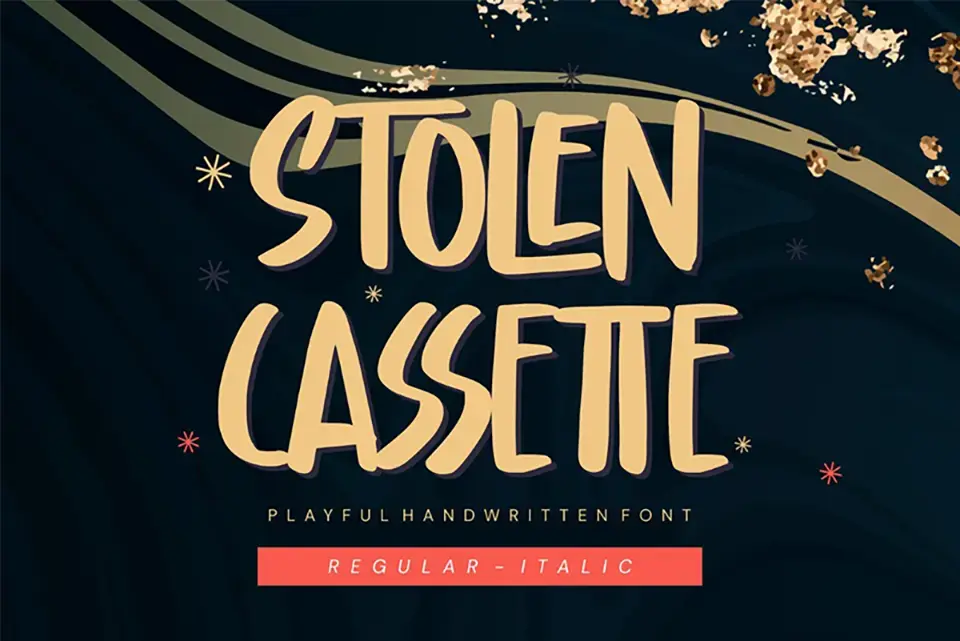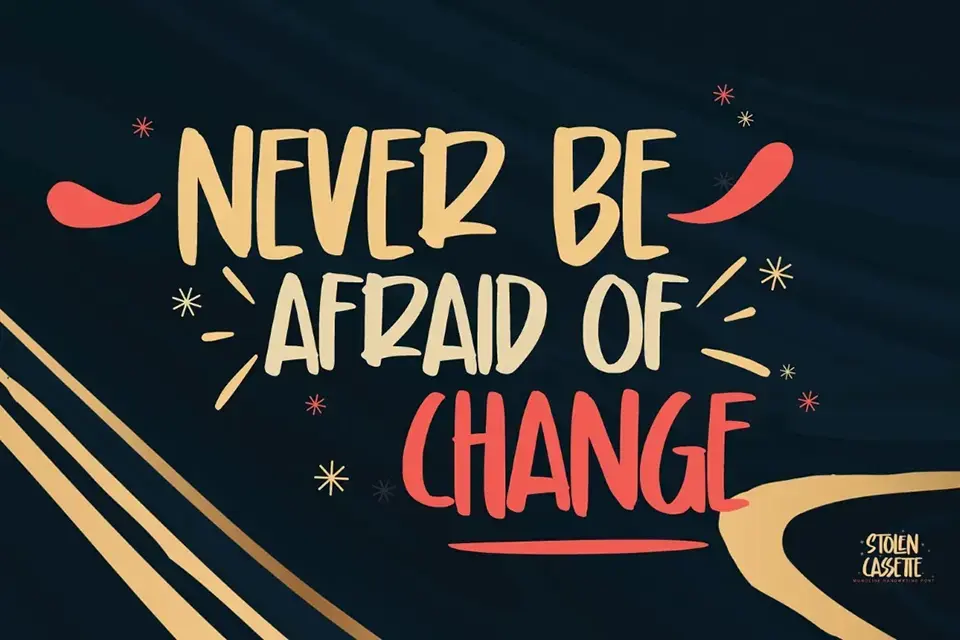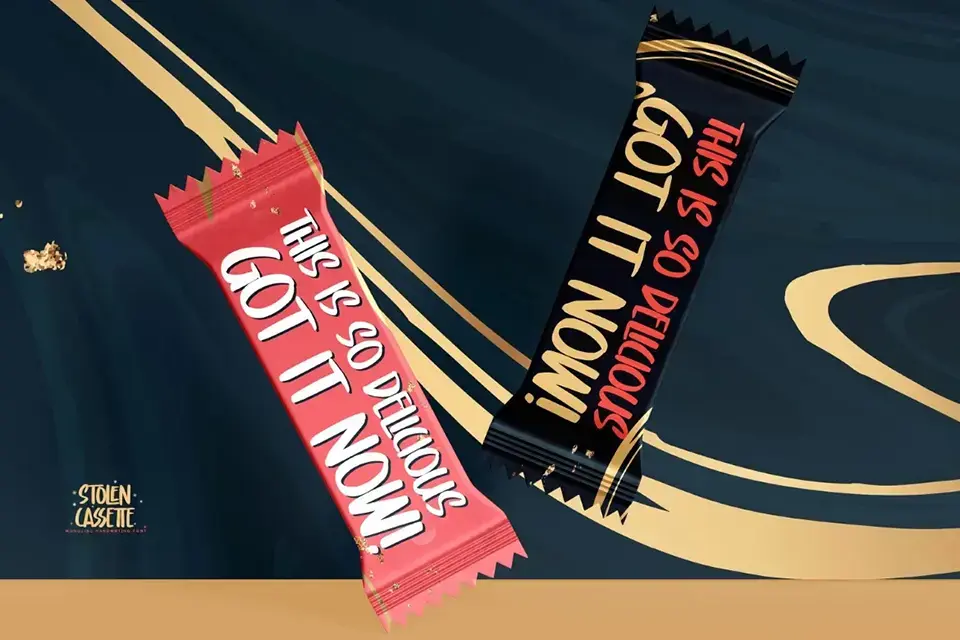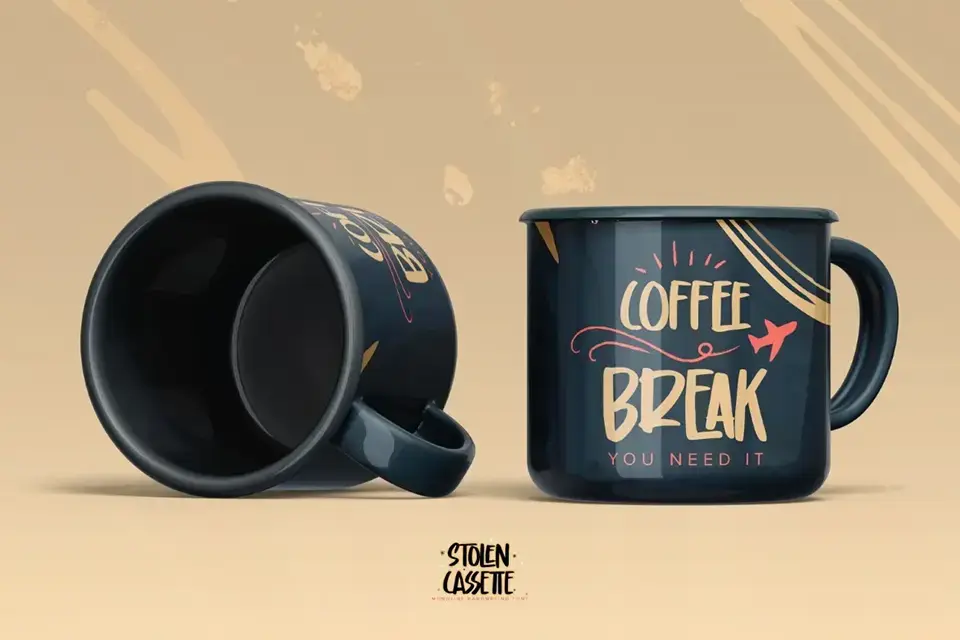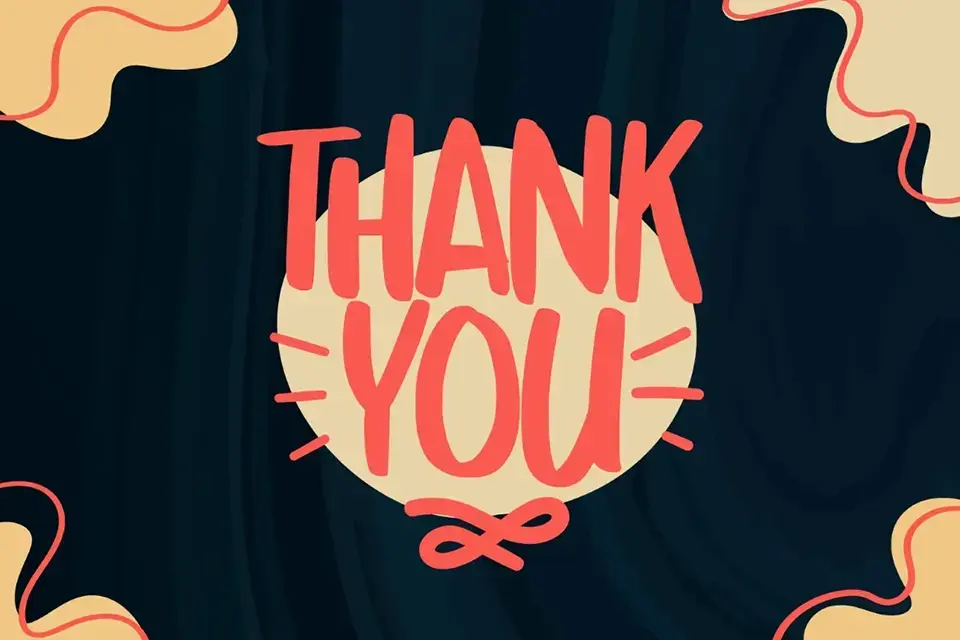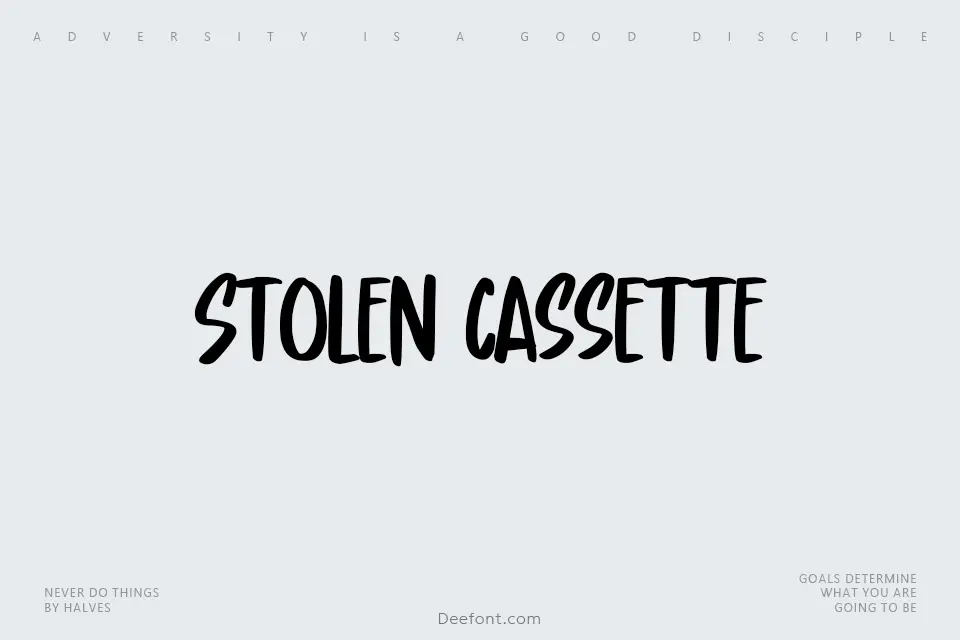
Stolen Cassette Font
Stolen Cassette is a striking handwritten display font that combines bold, dynamic letterforms with a slanted, condensed aesthetic. Designed by Gassstype Studio, this font features closely-spaced characters with an energetic, slightly rough appearance reminiscent of vintage cassette tape aesthetics. The condensed spacing and pronounced angular strokes create a distinctive personality ideal for posters, music-related designs, band merchandise, retro graphics, and eye-catching display typography. Whether used for album covers, event promotions, or creative headlines, Stolen Cassette brings authentic handwritten charm with contemporary flair to any design project seeking bold visual impact.